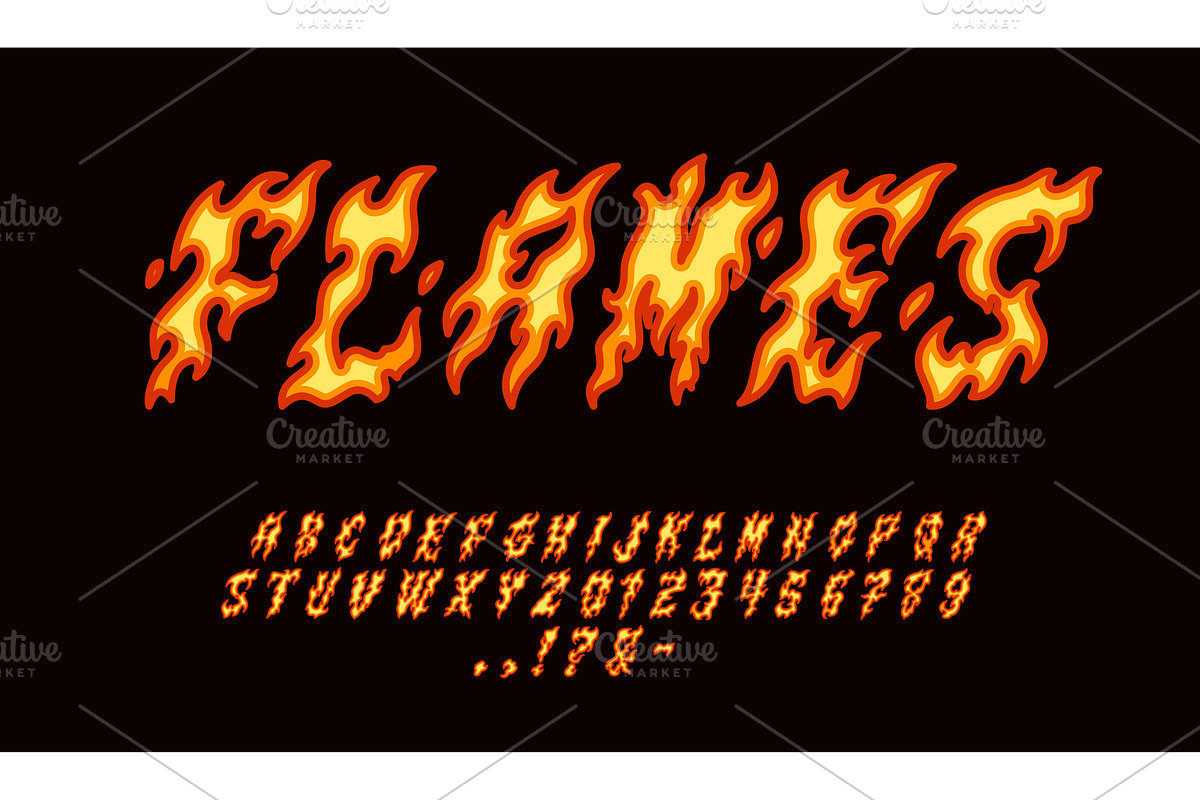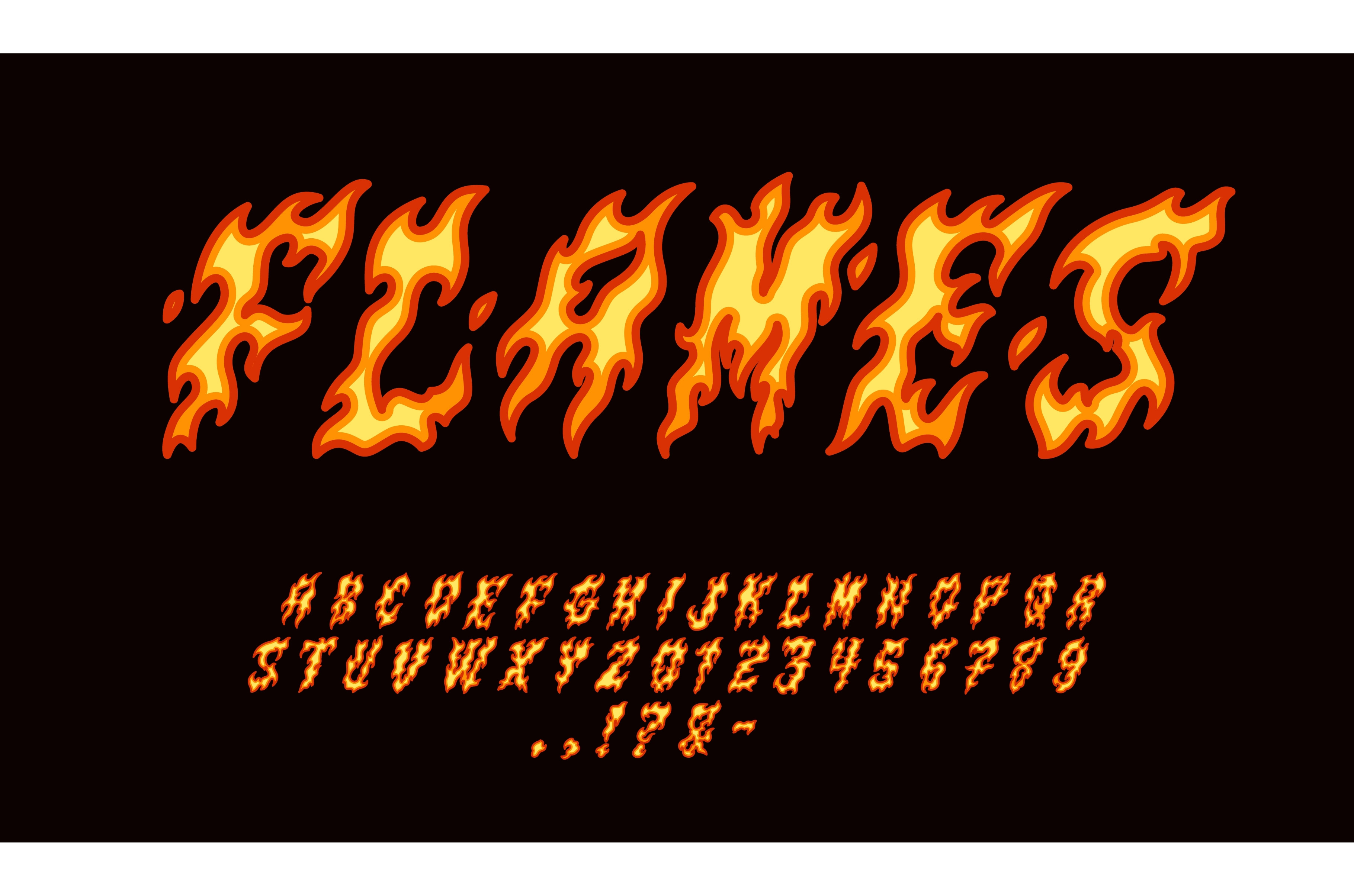
Burning font. Flame letters and
Burning font. Flame letters and numbers, fire alphabet, bonfire magic text, decorative typography, graffiti inscriptions, bright ignite flammable typeface, elements for design tidy vector isolated set